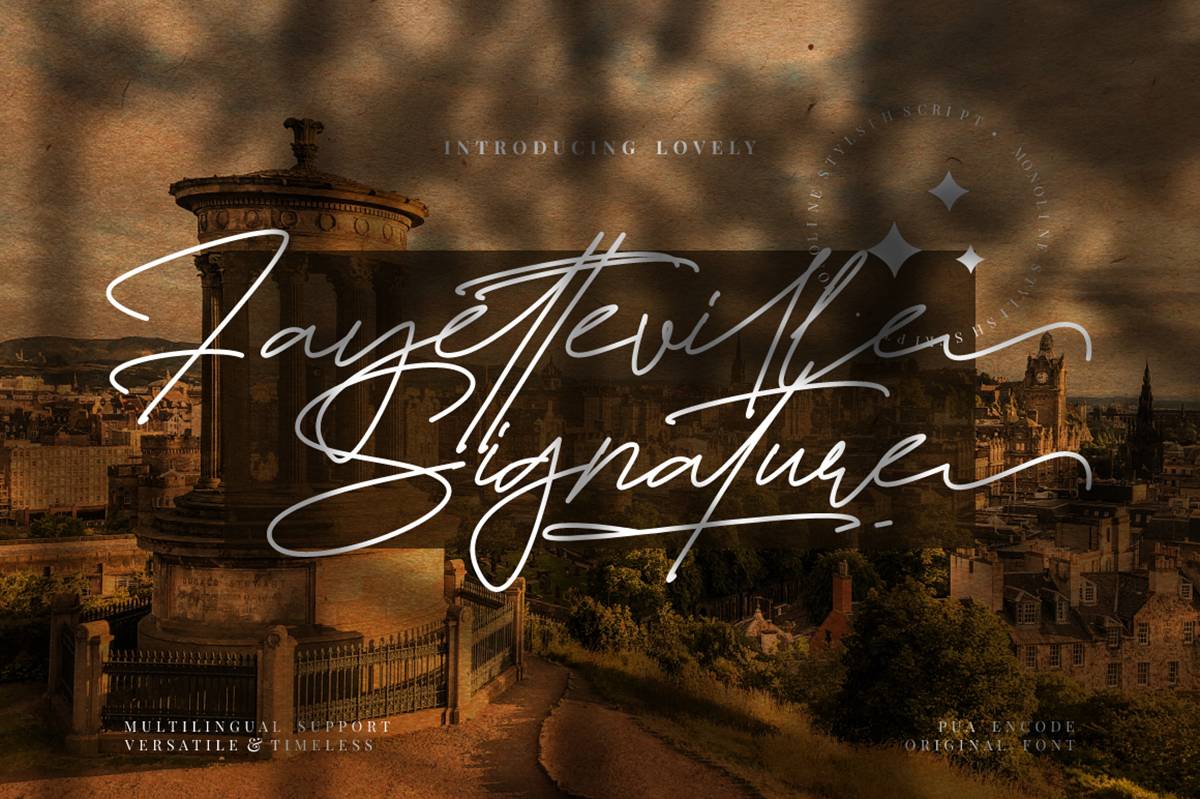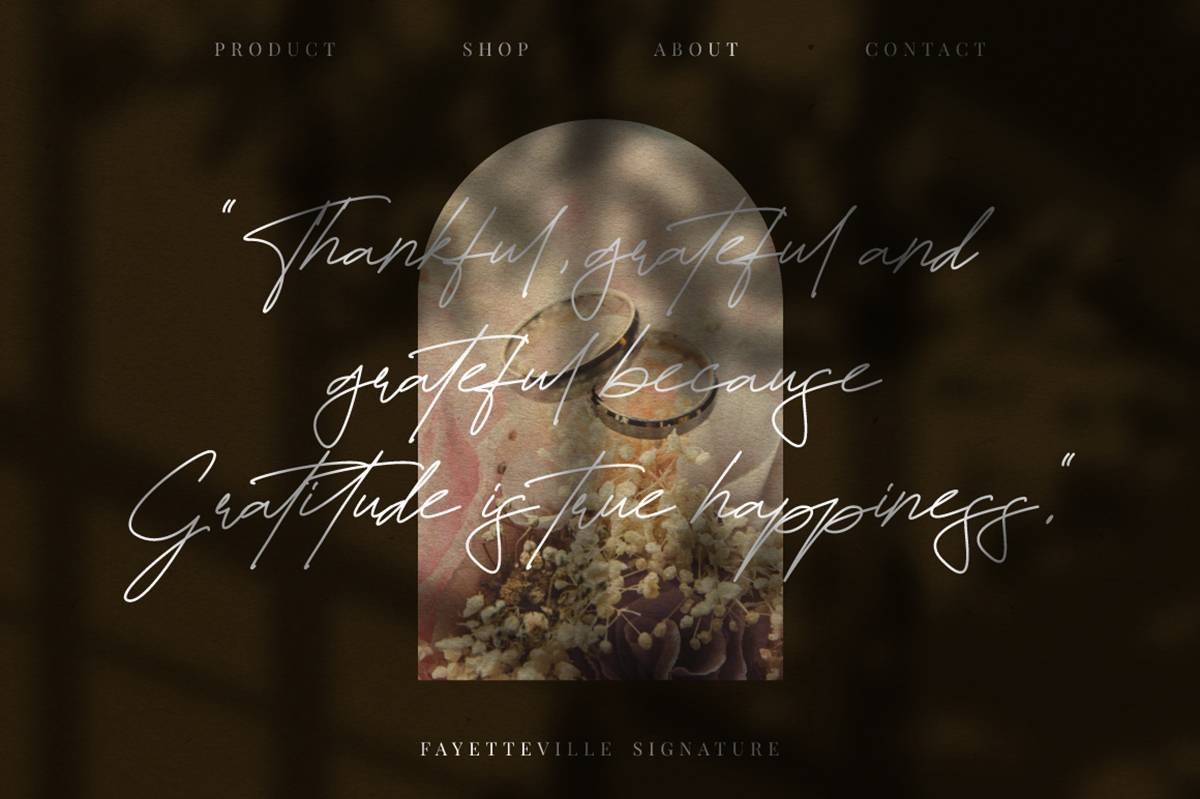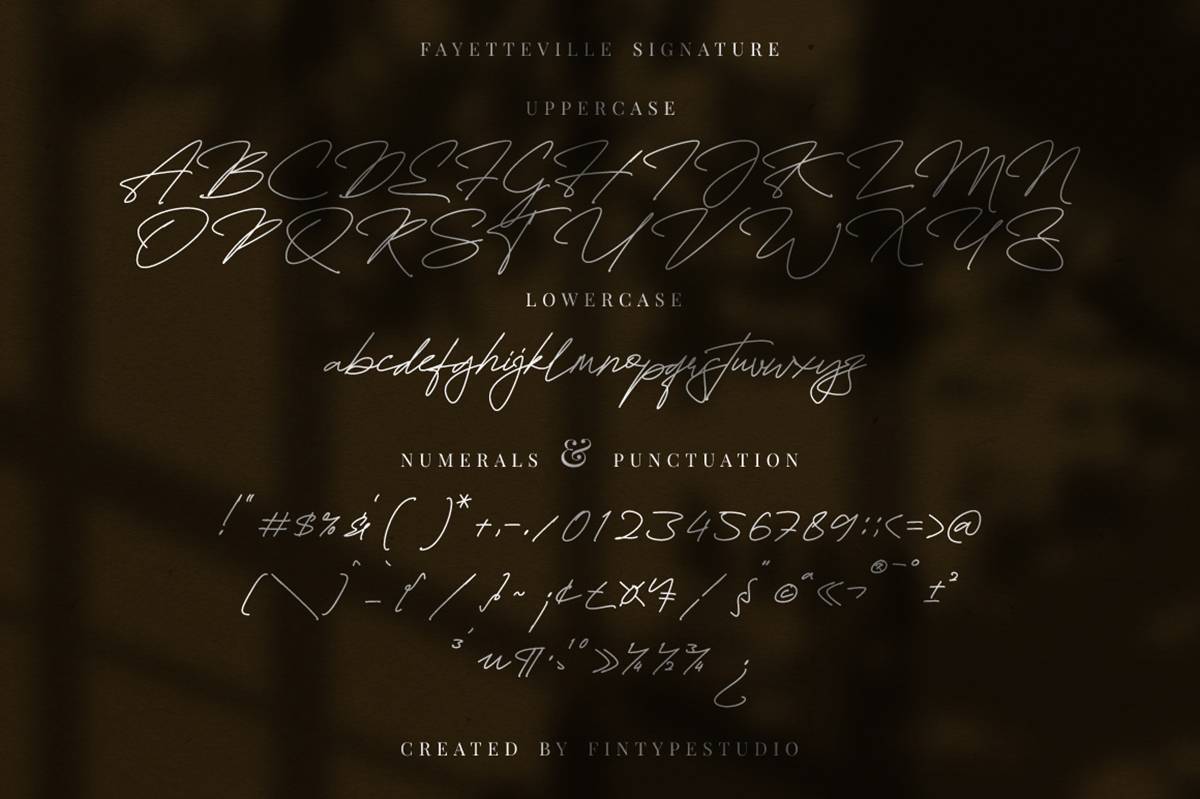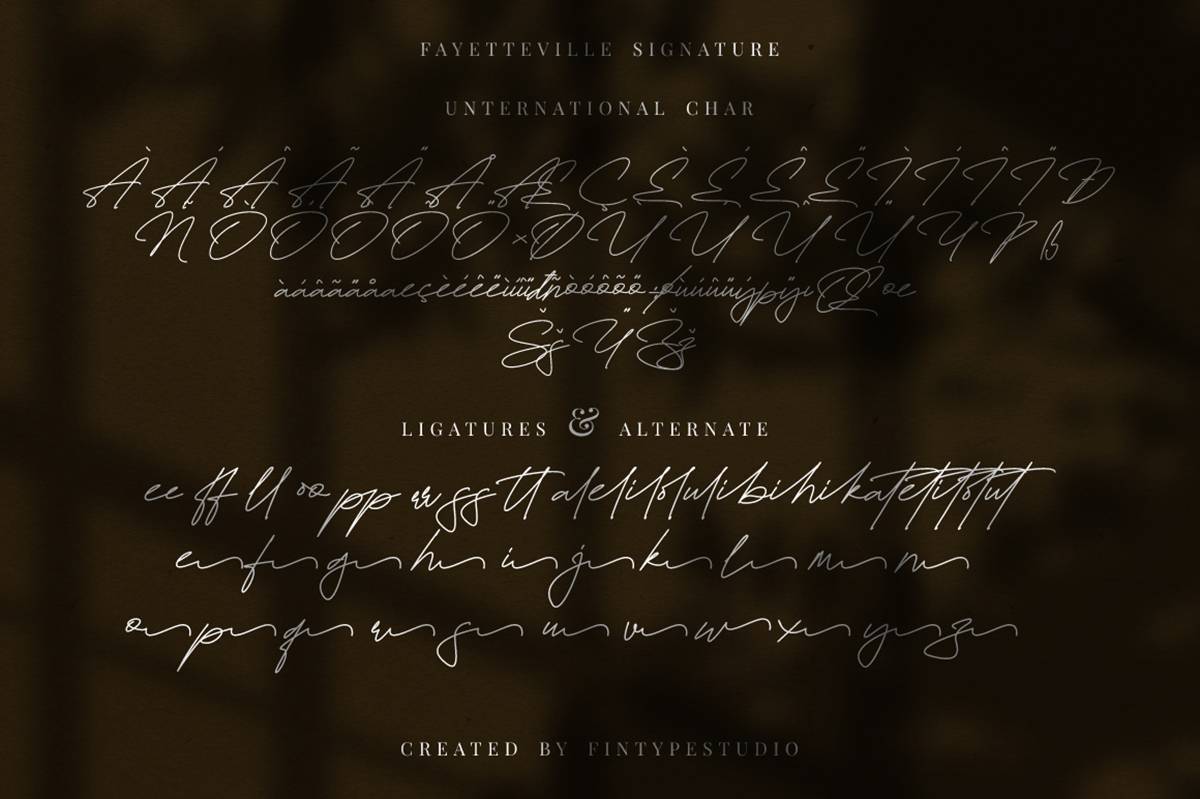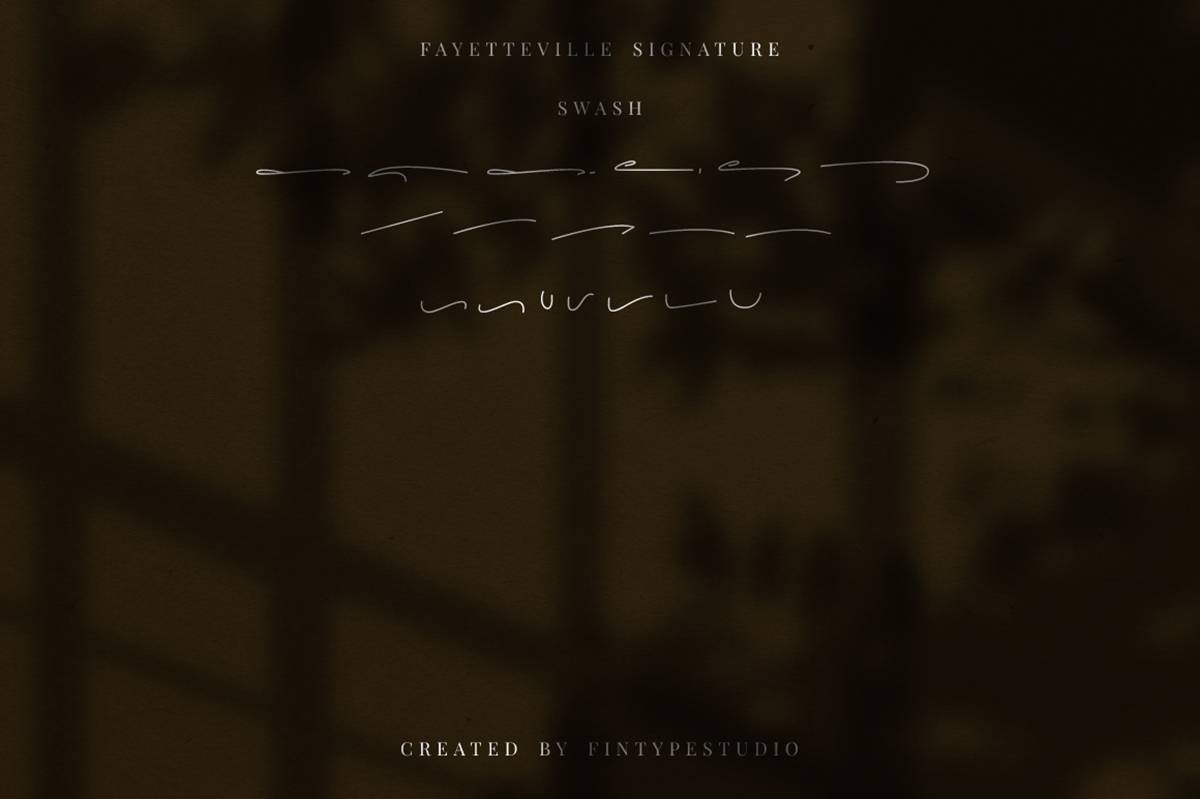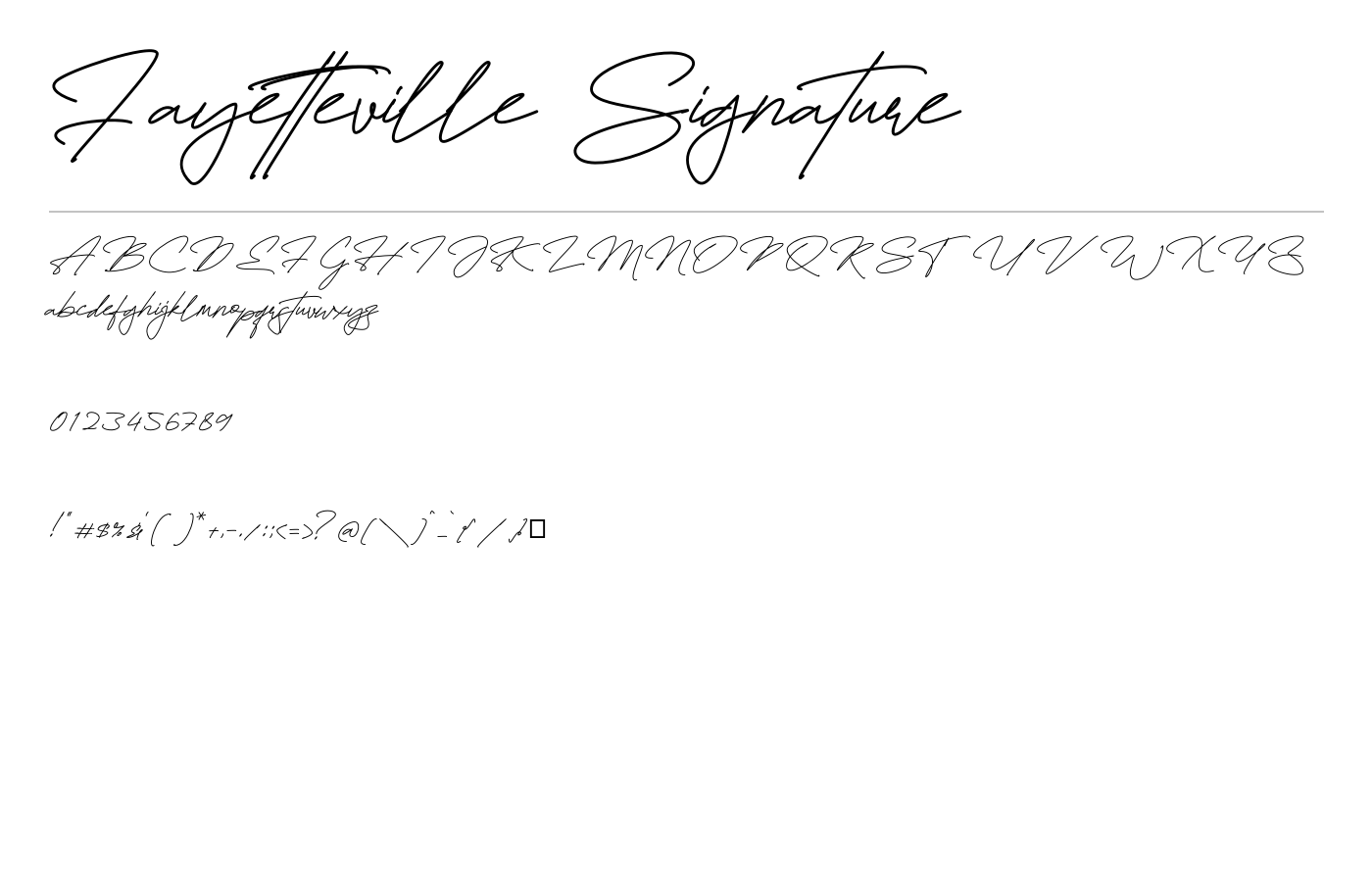
Fayetteville Signature Font is a delicate and elegant script typeface that mimics natural handwriting with its thin, flowing lines and personal touch. Its slender, slightly slanted letters create a refined yet approachable feel, perfect for branding, invitations, and any design seeking a natural, sophisticated signature style. This font works best in creative and luxury contexts where a handwritten charm is desired.
Fayetteville Signature Font
About Fayetteville Signature Font
| Font family | Fayetteville Signature Font |
| Designer | FinTypeStudio |